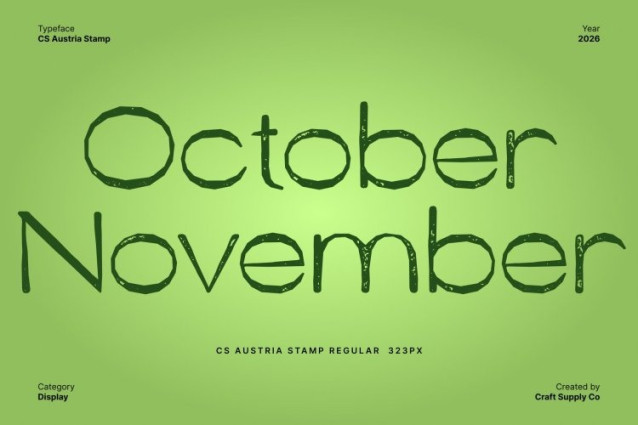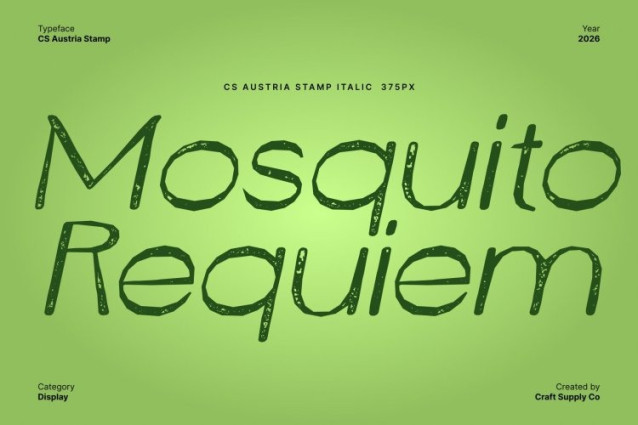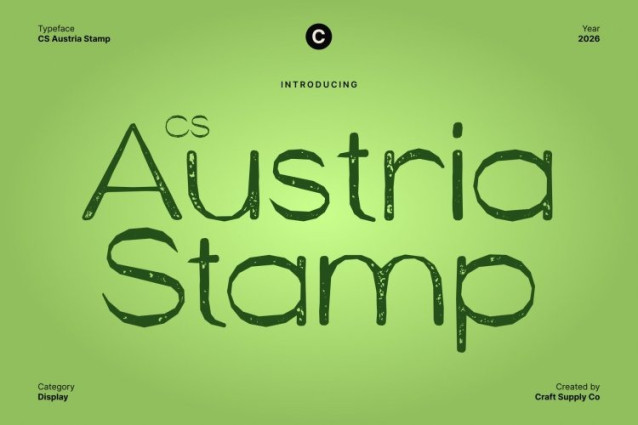
CS Austria Stamp Font
CS Austria Stamp Font This is a modern sans-serif font defined by slim proportions, clean construction, and refined minimalism. Its thin, well-balanced letterforms deliver a contemporary elegance that feels light, efficient, and visually precise. Designed with clarity at its core, this font offers a modern aesthetic that is both stylish and highly functional.
Slim, Minimalist Structure with Refined Balance
Characterized by narrow strokes and harmonious proportions, embodies sophisticated simplicity. The absence of excessive ornamentation allows the typography to breathe, resulting in a calm, professional appearance. This minimalist structure ensures strong readability while maintaining a graceful, modern tone.
Stamped Texture for Subtle Vintage Character
The stamped effect introduces a soft, uneven texture that gently disrupts the font’s clean geometry. This organic imperfection adds depth, warmth, and authenticity, giving the typeface a subtle vintage nuance without overpowering its modern clarity. The result is a refined balance between contemporary precision and handcrafted character.
Clear, Stylish, and Expressive
This font maintains excellent legibility across various sizes and formats. Its clean forms ensure accessibility, while the stamped texture adds expressive detail that elevates the overall visual presence. This combination makes the font feel modern yet human polished but not sterile.